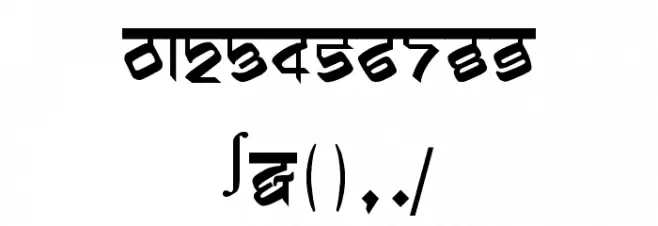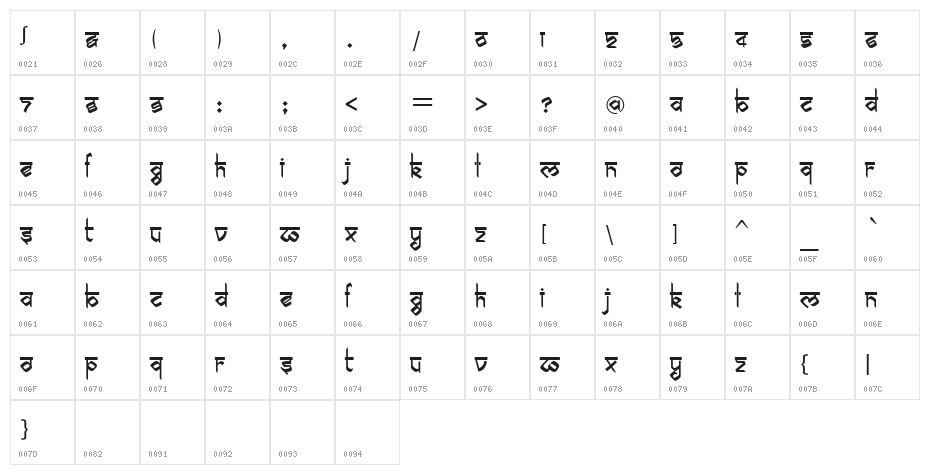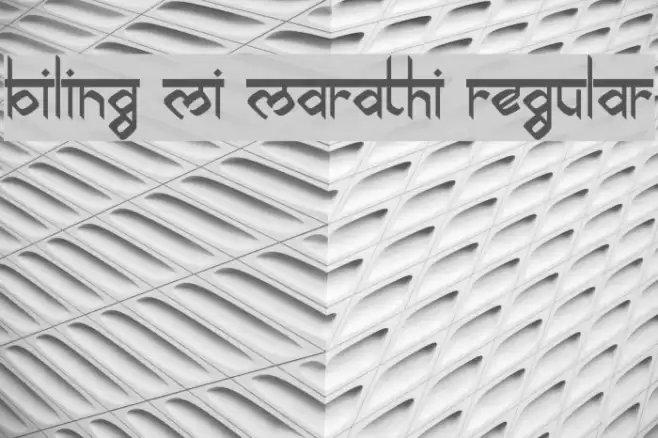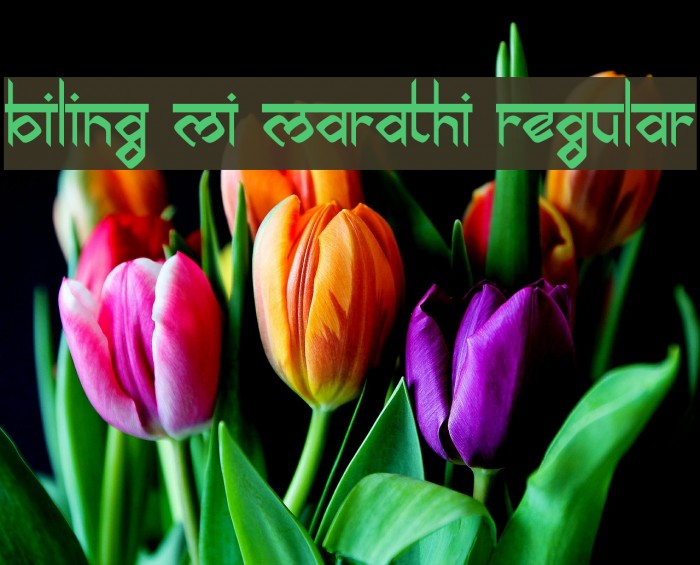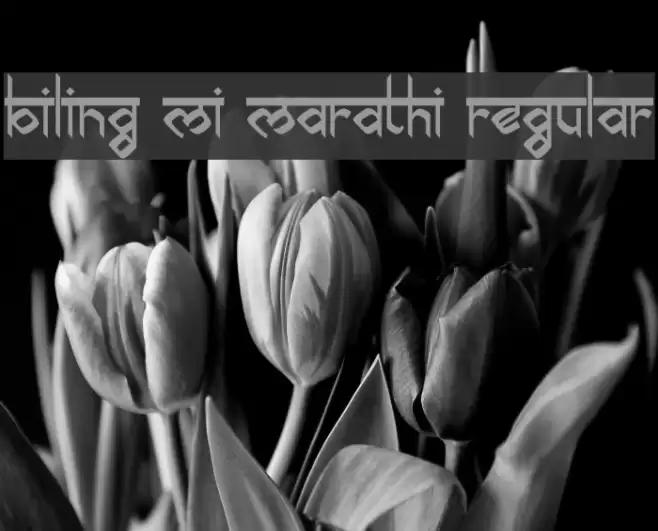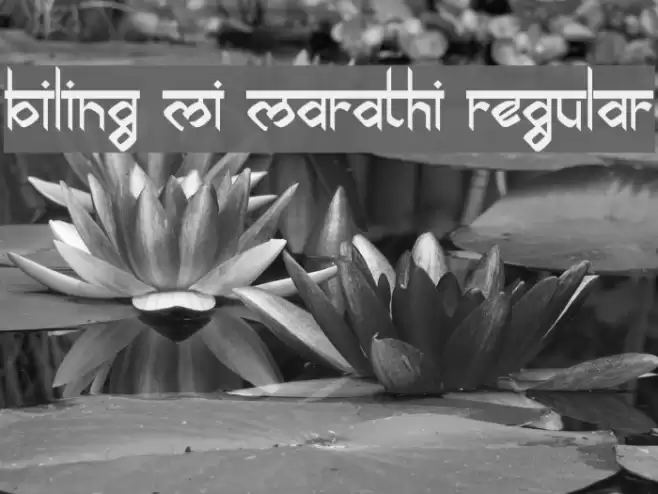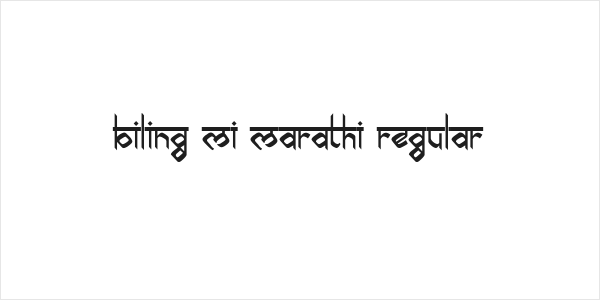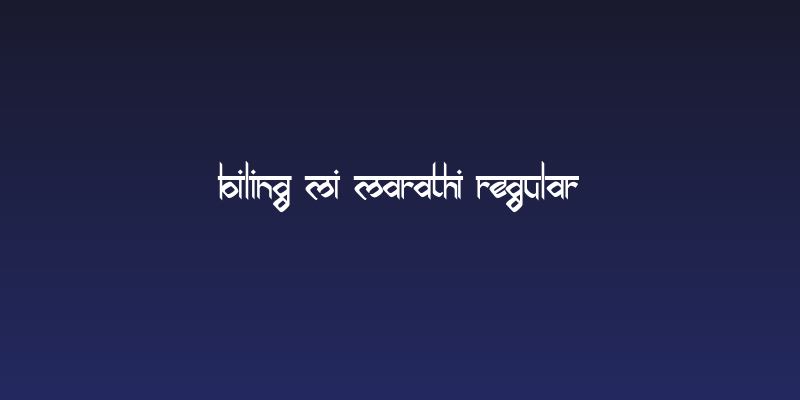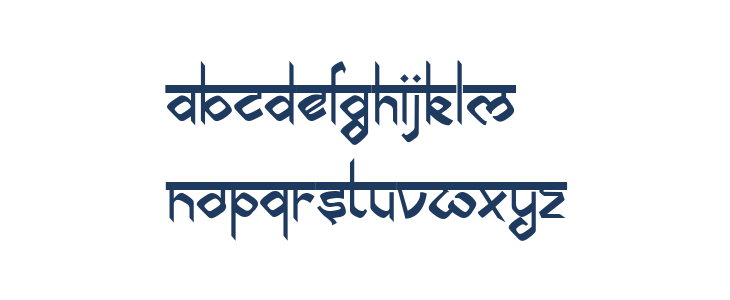
biling mi marathi Regular Font
biling mi marathi Regular Description
This font features a unique blend of traditional and modern elements, characterized by its angular and geometric shapes. The letters are crafted with sharp edges and a distinct horizontal line running through the middle, reminiscent of Devanagari script influences. This design gives it a cultural and artistic flair, making it stand out in any context. The numerals and special characters maintain the same stylistic approach, ensuring consistency across all glyphs. The overall appearance is bold and striking, suitable for making a strong visual impact.
| Overall Style | Modern with traditional influences |
| Proposed Projects | Ideal for cultural projects, artistic posters, branding with a traditional touch, and any design requiring a bold statement. |